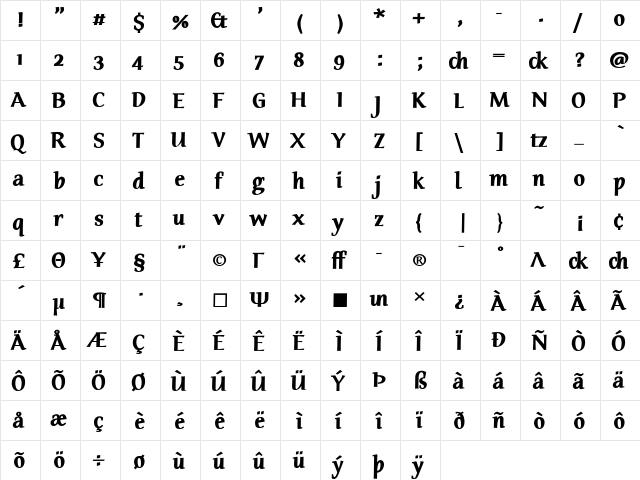
TarquiniusPlus ExtraBold Font Preview
TarquiniusPlus ExtraBold
Design Context for TarquiniusPlus Typeface
TarquiniusPlus takes a measured approach to typography — its balanced proportions and neutral character make it a reliable workhorse for both digital and print work. Its bold stroke weight gives it real presence on the page.